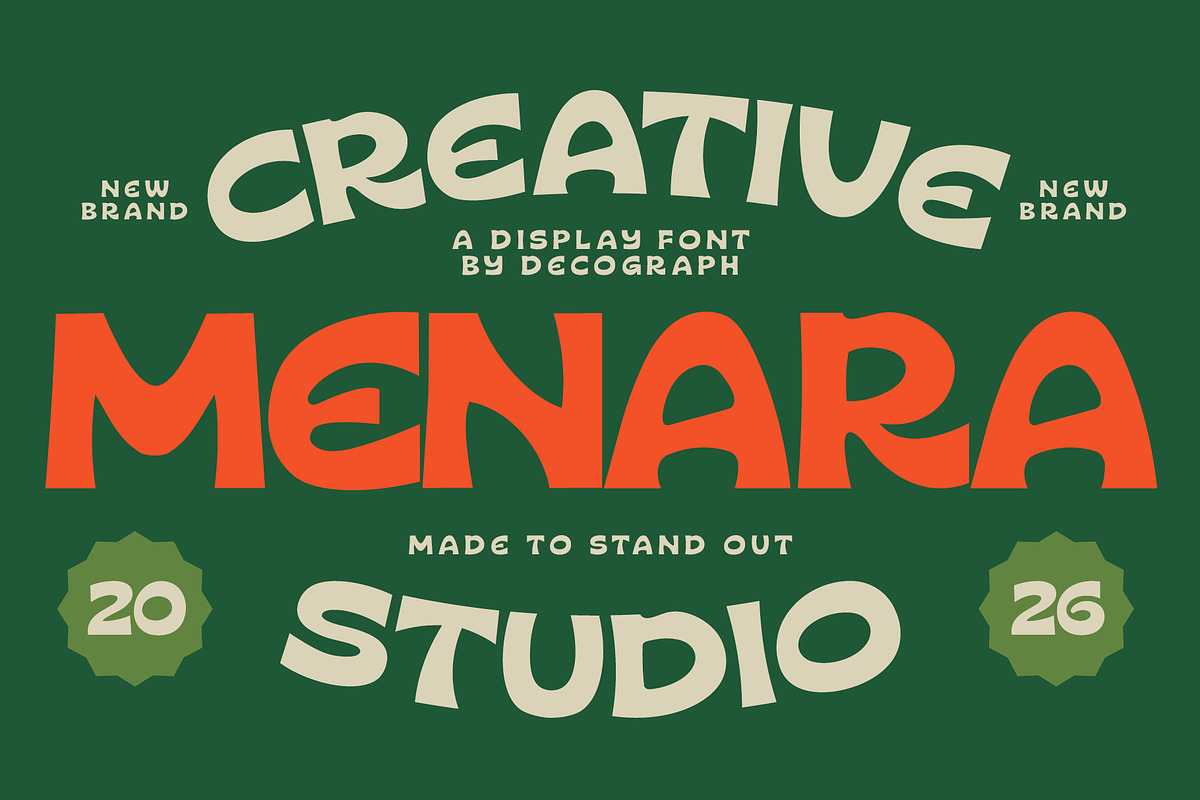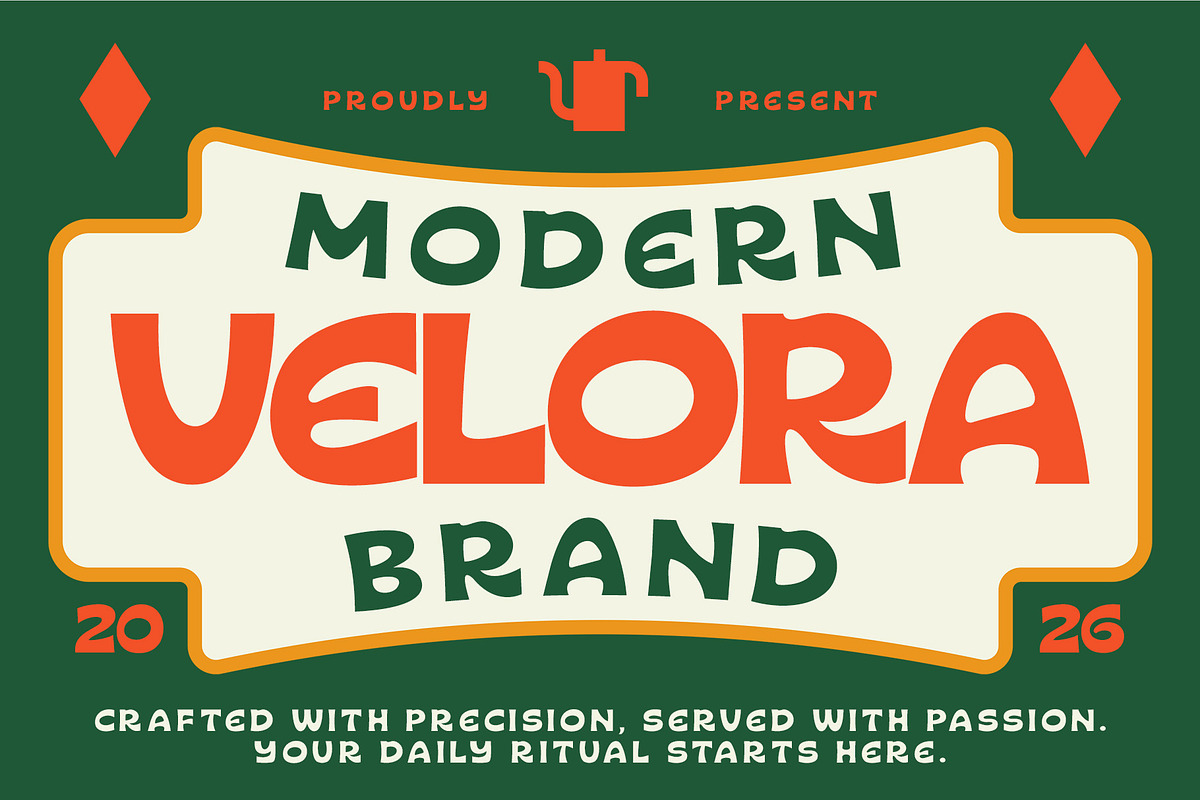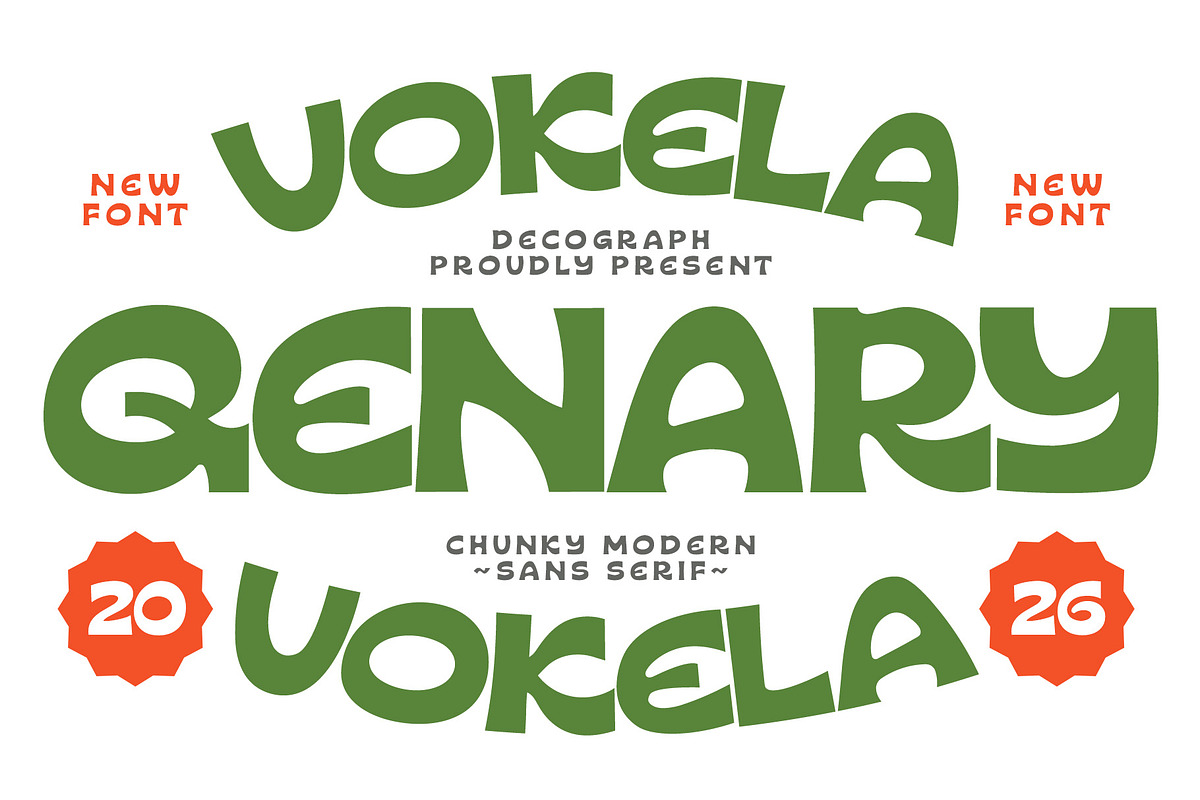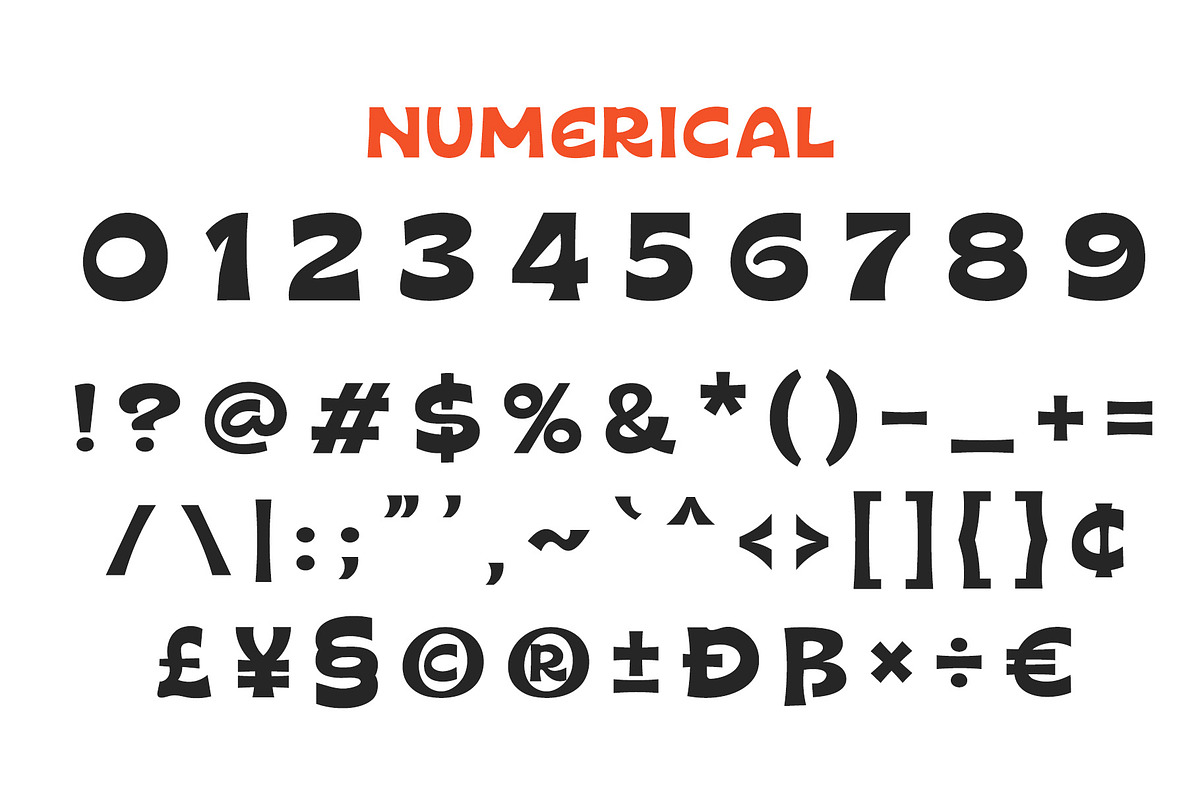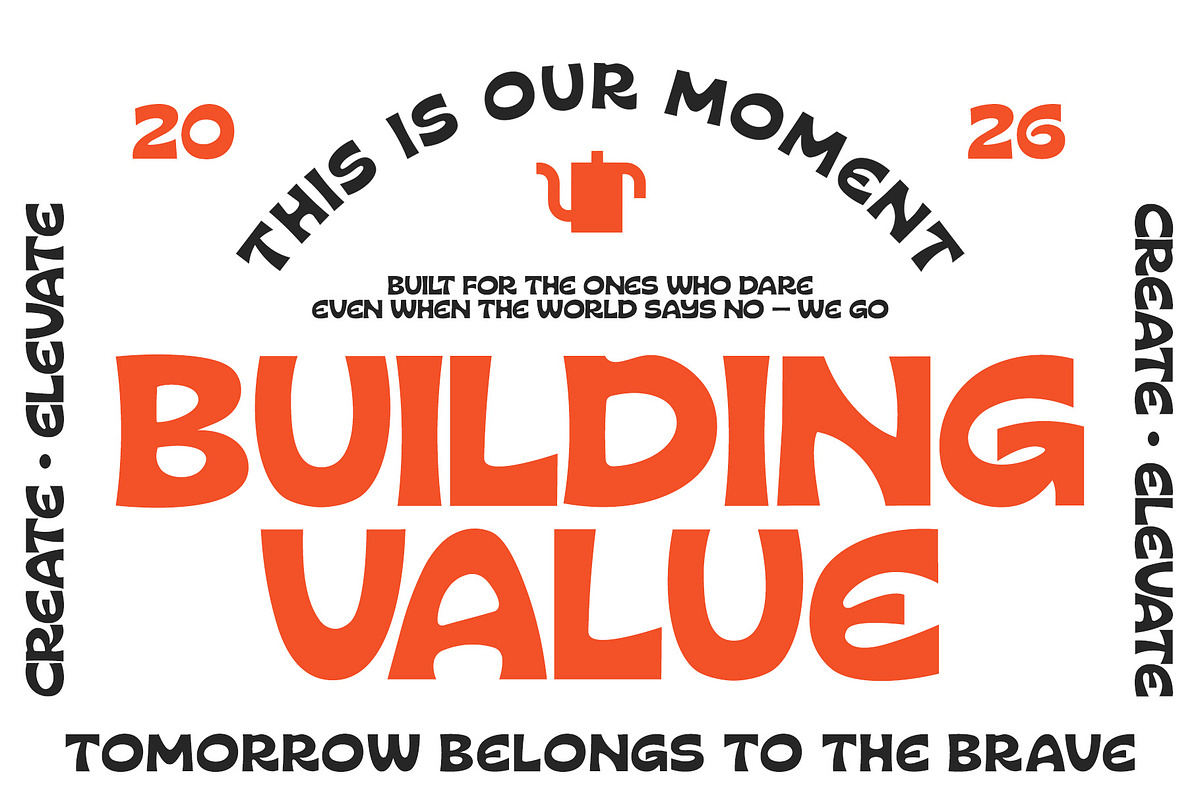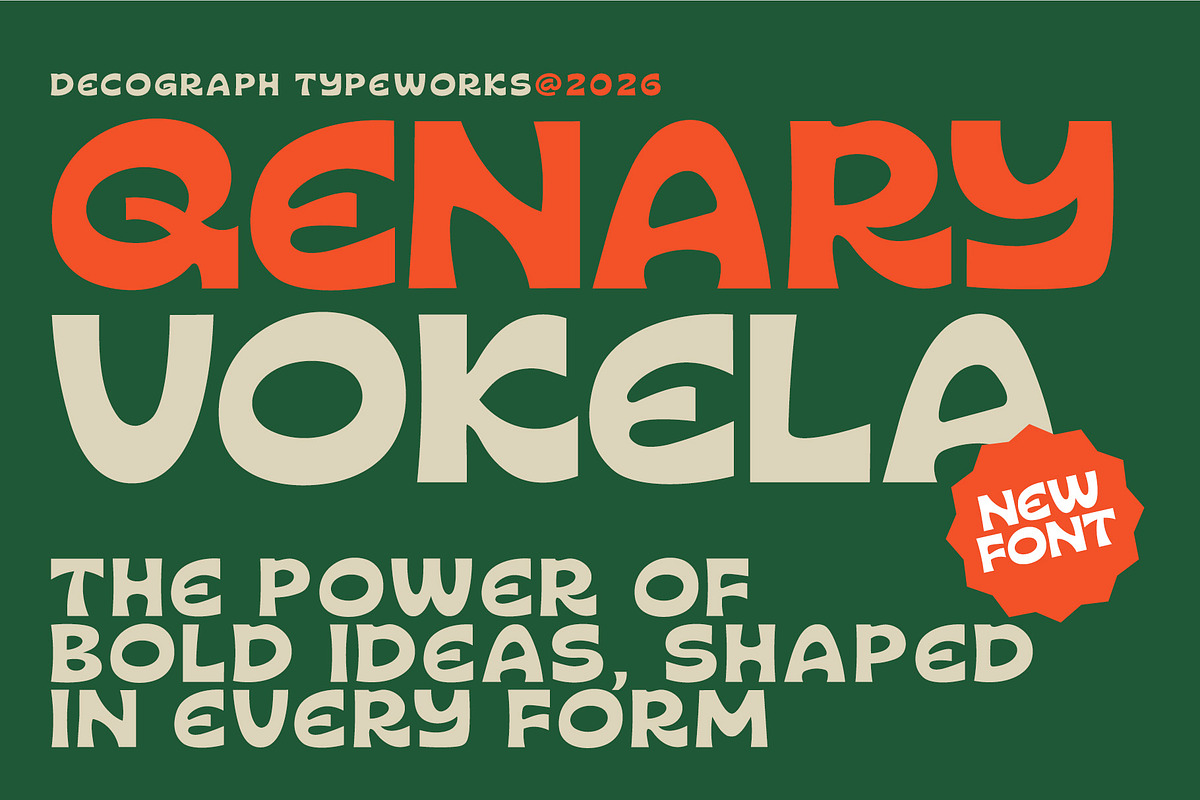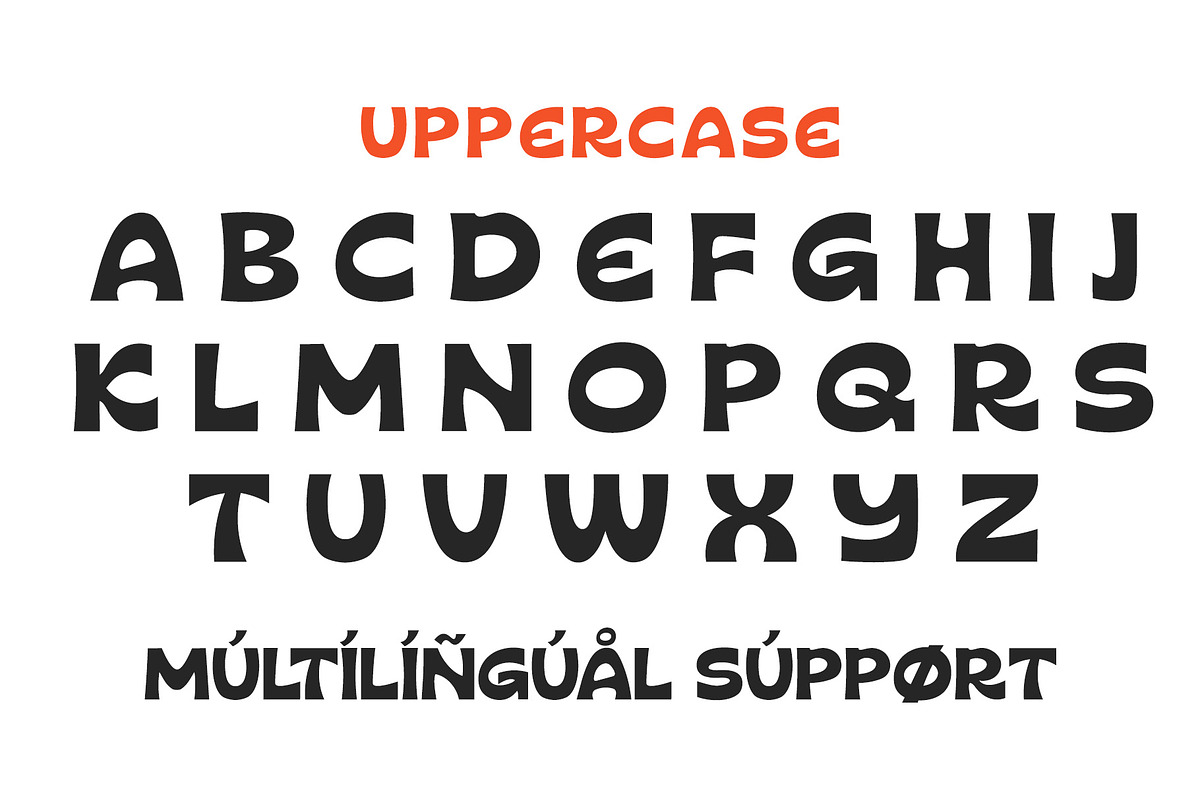
Qenary Vokela – Chunky Sans Serif
Qenary Vokela is a bold, chunky modern display sans serif that radiates playful energy and confident character. With its thick strokes, soft rounded edges, and subtly wavy baseline, this font creates a lively and dynamic visual rhythm that instantly grabs attention. Designed to stand out, Qenary Vokela is perfect for eye-catching headlines, branding, packaging, posters, kids-themed designs, and social media content. Its organic shapes and contemporary feel strike the perfect balance between fun and modern professionalism, making it a versatile choice for creatives who want to deliver strong, memorable visuals with a cheerful twist.
- Smooth Kerning